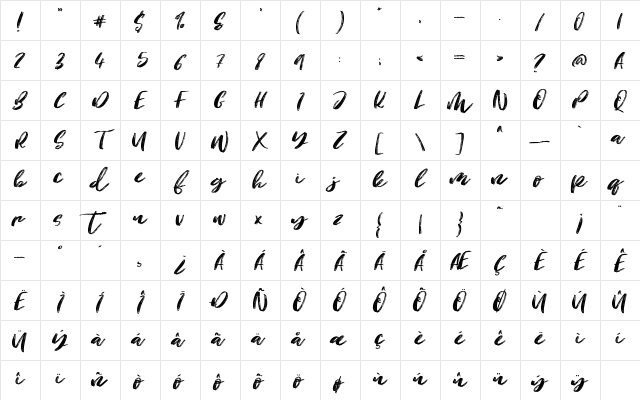
Justify Regular
Justify Family
Design Context for Justify
Justify is a composed and adaptable typeface that performs quietly and consistently across a wide range of design contexts.